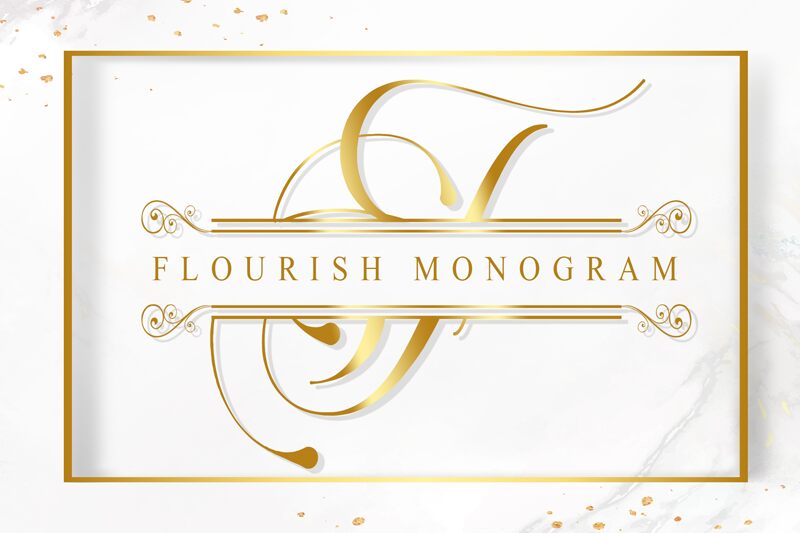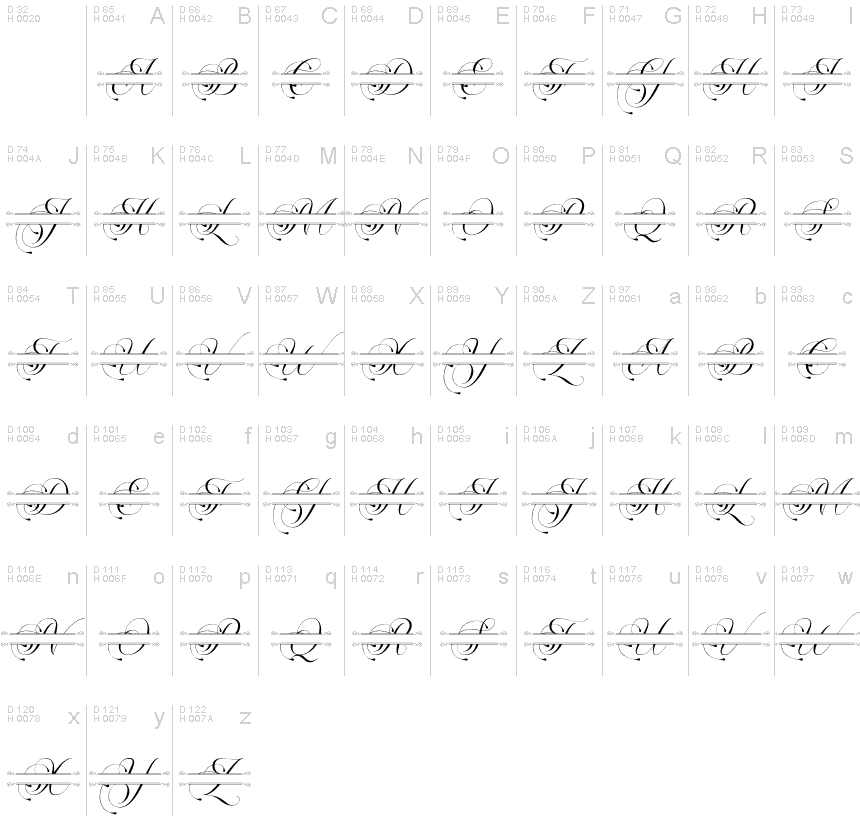
Flourish Monogram
Flourish Monogram is an elegant and decorative display font designed by Doehantz Studio's Abduhan Fikhri. Its monogram style is perfect for branding, logos, and stationery designs. Flourish Monogram's light weight allows it to be used in designs that require a subtle and sophisticated touch, while its decorative flourishes add a sense of class and refinement. Use Flourish Monogram to elevate your designs and leave a lasting impression.